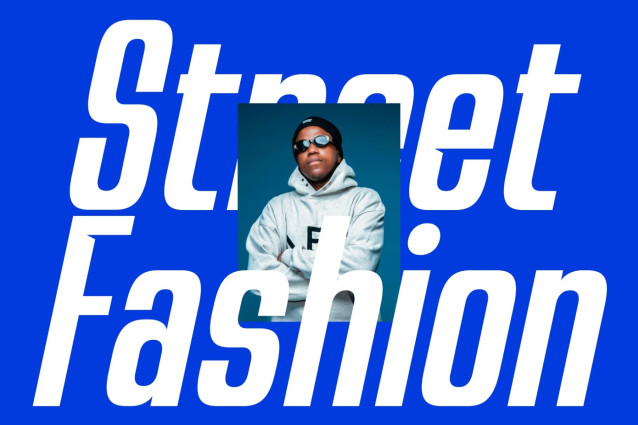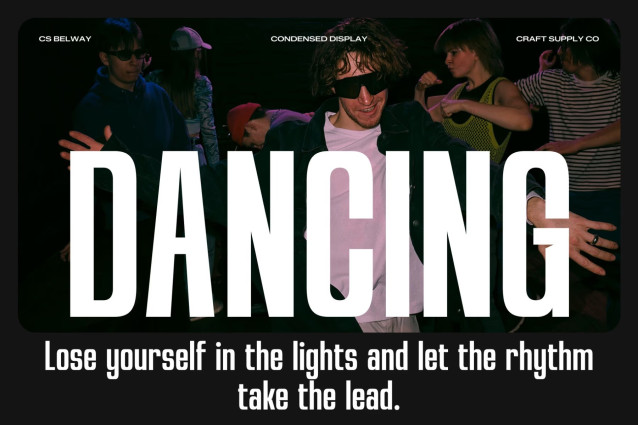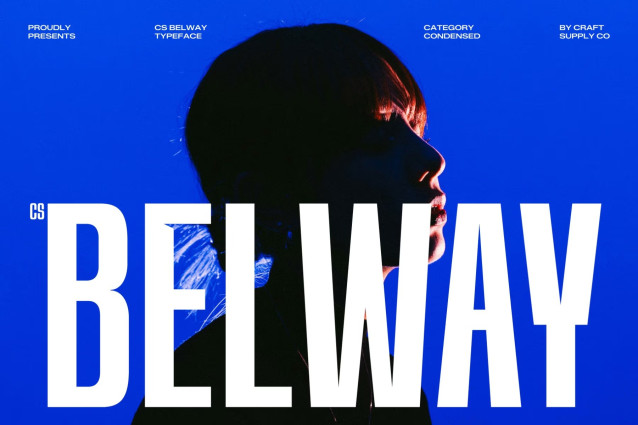
CS Belway – Condensed Font
CS Belway – Condensed Sans Serif Font: Where Precision Meets Impact
Compact Structure with Confident Appeal
This is a modern condensed sans serif font crafted to deliver strong visual impact in limited space. Its narrow proportions and efficient design allow each character to appear bold and assertive without overwhelming the layout. This compact structure makes it an excellent solution for designs that require both clarity and intensity within tight compositions.
Bold Presence with Clean Readability
Designed with sharp geometry and clean strokes, this font achieves a perfect balance between boldness and readability. Its streamlined letterforms ensure that text remains legible even when used in dense arrangements, while its confident style adds a commanding tone.
Perfect for Headlines and Fashion Visuals
This font shines in high-impact applications such as headlines, posters, and fashion-related designs. Its condensed form allows designers to maximize space while maintaining a striking appearance. Whether featured in magazine covers, promotional banners, or runway-inspired layouts, it brings a modern and stylish edge that captures attention instantly.